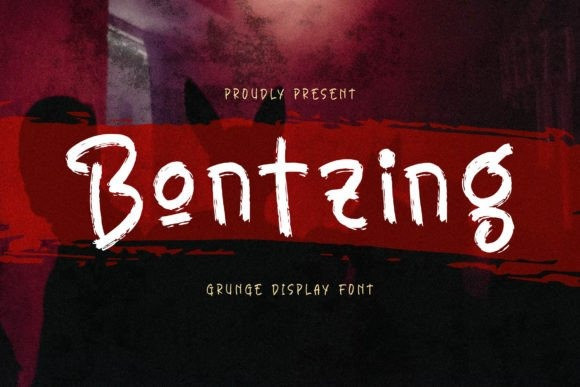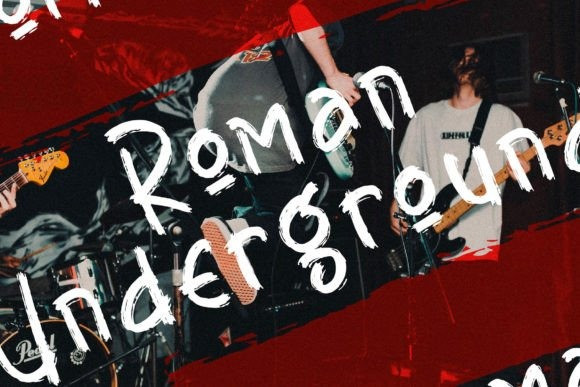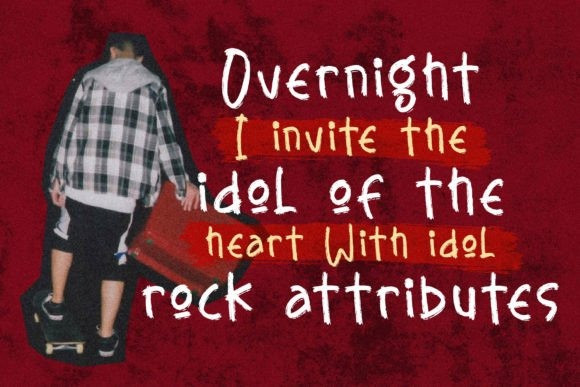
Bontzing Font
Bontzing – Grunge Display Font , from Glorytype Studio, suitable for any projects such as: logos, branding projects, homeware designs, product packaging, mugs, quotes, posters, shopping bags, t-shirts, book covers, name card, invitation cards, greeting cards, label, photography, watermark, special events, and all your other lovely projects that need a beautiful script taste.